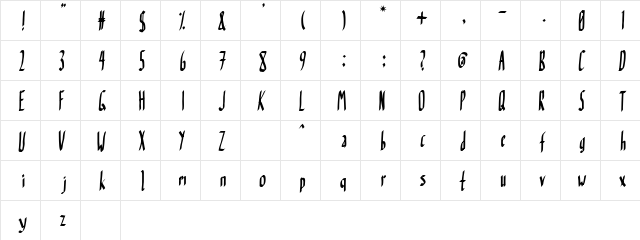
Celadyr Regular
Design Context for Celadyr Typeface
Celadyr is a composed and adaptable typeface that performs quietly and consistently across a wide range of design contexts.